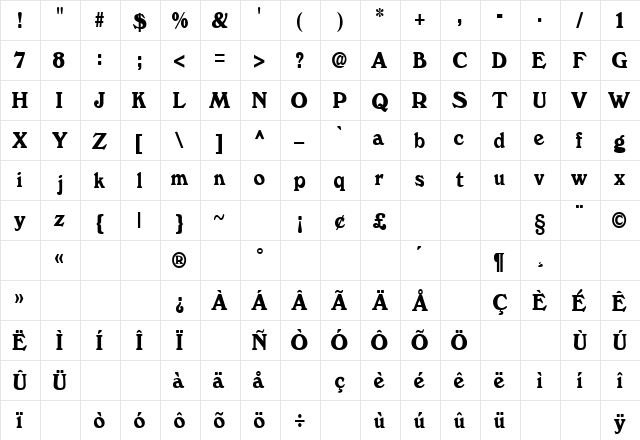
Unemployment 5 Regular
Design Context for Unemployment 5 Typeface
Unemployment 5 takes a measured approach to typography — its balanced proportions and neutral character make it a reliable workhorse for both digital and print work.